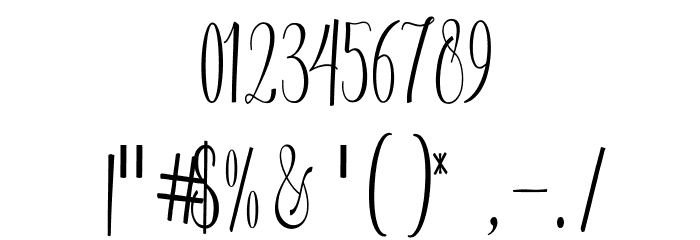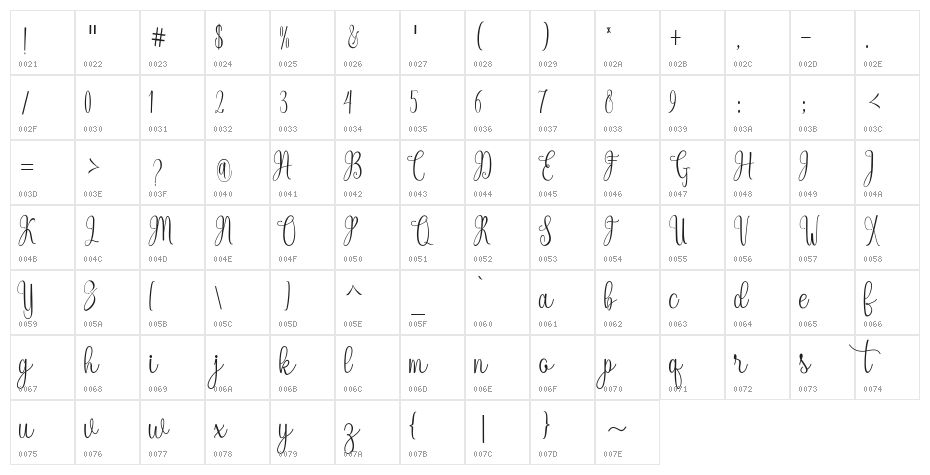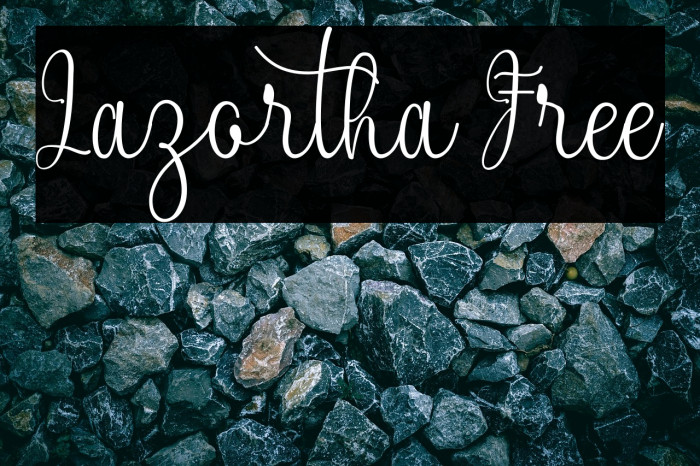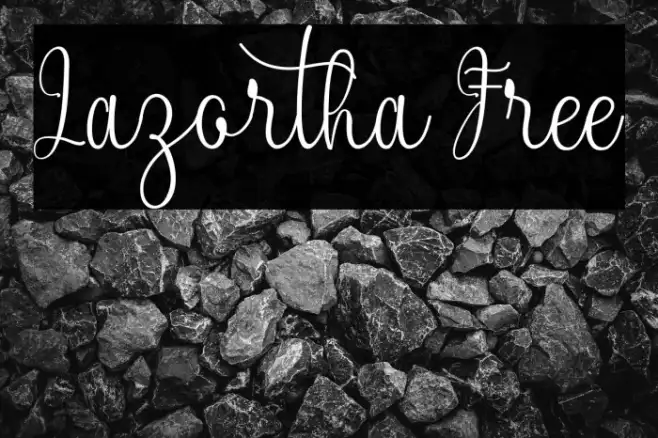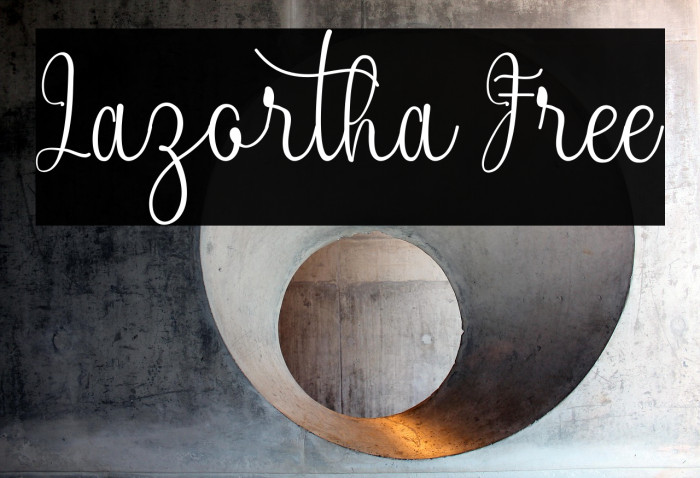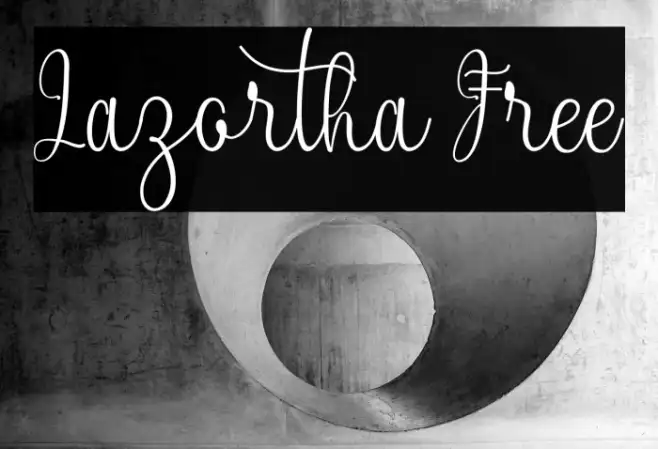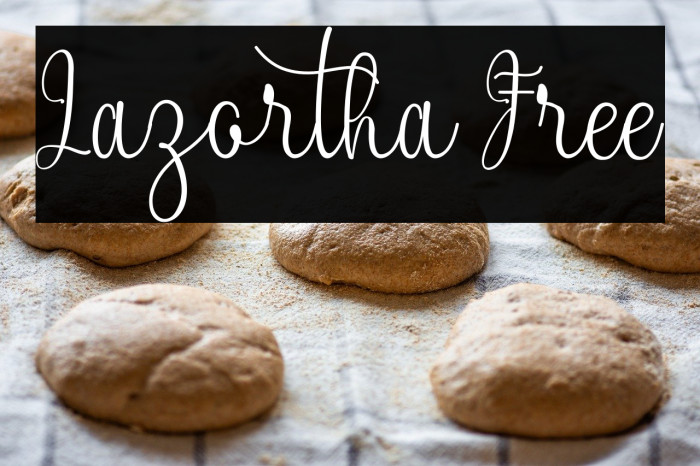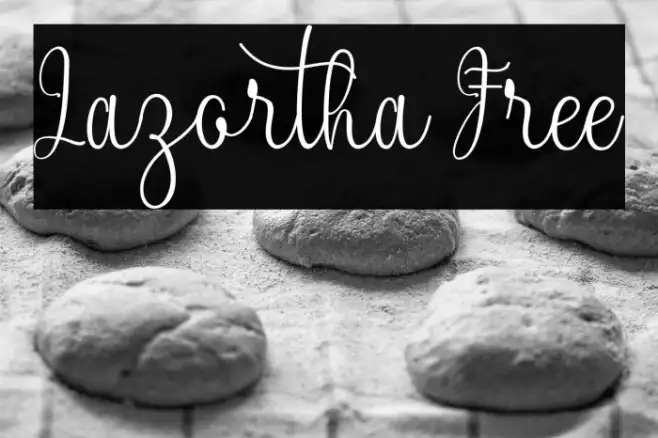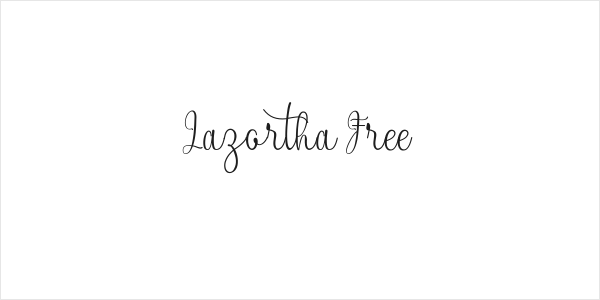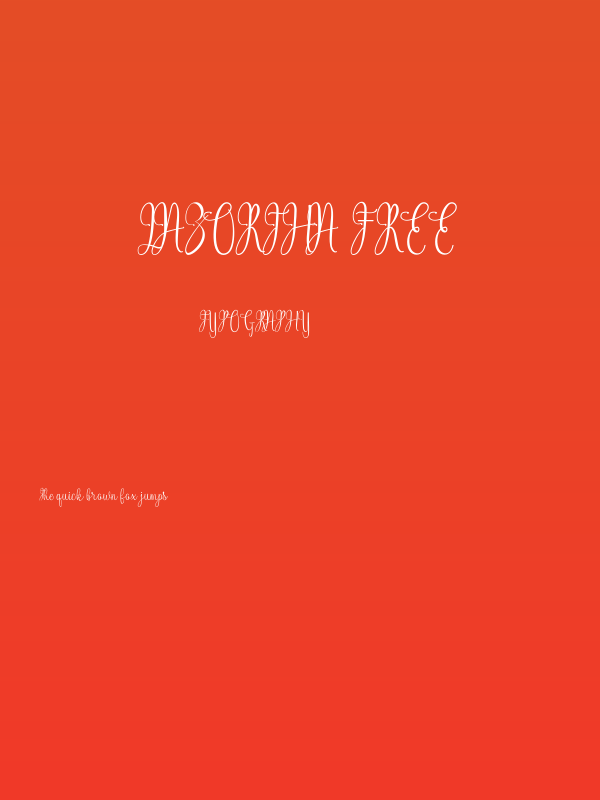
Lazortha Free Font
Lazortha Free Description
This font features an elegant and flowing script style, characterized by its smooth, cursive letterforms and intricate swashes. The uppercase letters are particularly ornate, with loops and flourishes that add a touch of sophistication and charm. The lowercase letters maintain a consistent flow, complementing the uppercase with their graceful curves. Numbers and special characters are designed with the same attention to detail, ensuring a cohesive look across all text. This font is perfect for projects that require a personal, handwritten touch, such as invitations, greeting cards, or branding materials.
| Use Case | Headlines, Invitations, Branding |
| Proposed Projects | Ideal for wedding invitations, greeting cards, branding, and elegant signage. |